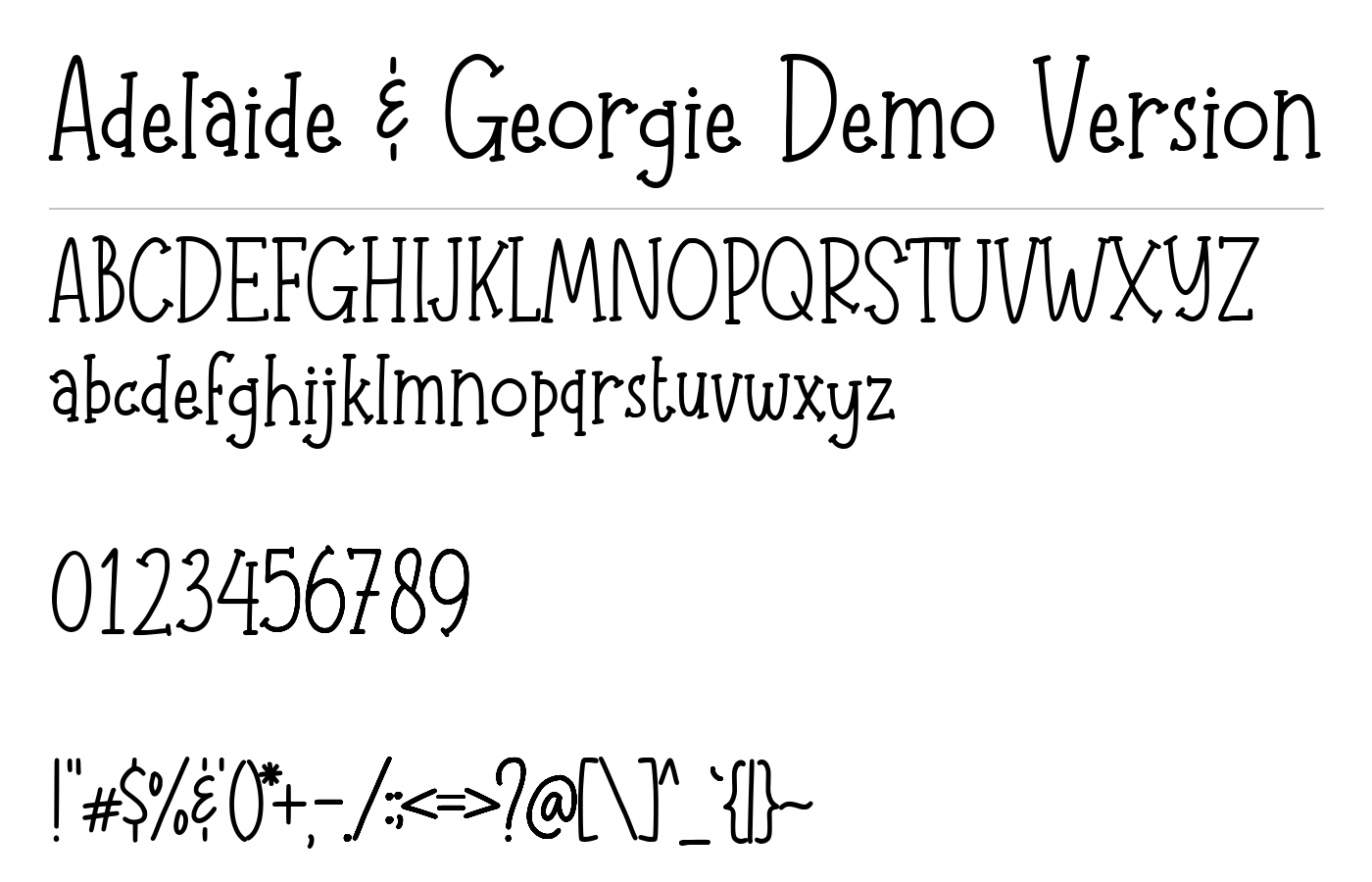
Adelaide & Georgie Demo Version is a playful, hand-drawn serif font with a whimsical and informal vibe. Its tall, narrow letterforms with subtle serifs and uneven strokes create a friendly and charming personality, perfect for creative projects, children's books, or casual branding. This font works well in headlines and short texts where a personal, approachable feel is desired.
Adelaide & Georgie Demo Version Font
About Adelaide & Georgie Demo Version Font